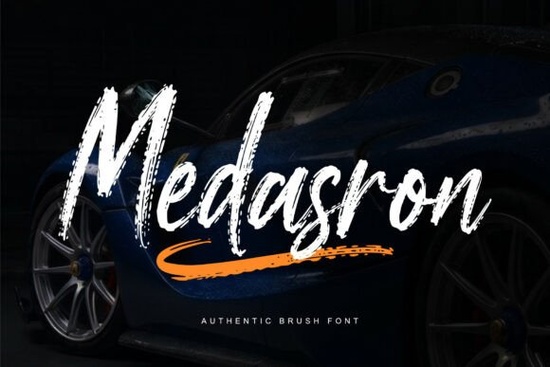
Looking for a brush font that feels real, bold, and full of character? Medasron Font delivers exactly that authentic hand-painted energy with every stroke. It’s not just another digital typeface; it’s designed to mimic the way a brush moves on paper, with rough edges, natural texture, and subtle imperfections that give your designs a handmade feel.
What makes Medasron stand out from other brush fonts?
While many brush-style fonts look smooth or overly polished, Medasron embraces the messy beauty of real brushwork. The dry brush effect and uneven pressure create a dynamic rhythm across each letter. This isn’t just about style it’s about authenticity. Whether you’re designing a poster, branding a small business, or creating social media content, Medasron adds immediate visual interest and emotional impact.
You’ll notice how the flow feels natural, like someone wrote it quickly with confidence. That spontaneity is what sets it apart. It’s perfect when you want your message to feel personal, powerful, and artistic without needing to paint it yourself.
Where can you use Medasron in your creative work?
Its versatility means it fits into many projects without looking out of place:
- Branding & logos – A strong, memorable identity that stands out
- Posters & flyers – Great for events, concerts, or art shows
- Social media graphics – Captures attention in feeds and stories
- Merchandise – Works well on T-shirts, mugs, and stickers
- Invitations & stationery – Adds a touch of handmade charm
It’s especially effective when paired with simple backgrounds or minimal layouts. Let the font be the focus it carries its own weight.
How does Medasron compare to other popular script fonts?
If you’ve explored similar styles like Nougat Dreams, Simplexa, or Legendaris, you’ll notice Medasron leans more toward raw expression than delicate elegance. It’s less refined, more energetic ideal if you’re going for boldness over softness.
For those who love the dramatic flair but still want readability, Kingdom Knights offers a similar intensity, though with a slightly more structured hand. Medasron sits somewhere between them organic, expressive, and unapologetically real.
Want to see how it performs in action? Try pairing it with clean sans-serif fonts for contrast, or layer it over textured backgrounds to enhance the brush feel.
Why designers and creators are choosing Medasron
Many users appreciate that it doesn’t require extra editing to feel authentic. Unlike some fonts that need custom effects to look “handmade,” Medasron arrives ready to use. The texture is built-in, so you save time and get results faster.
It also works well at different sizes whether used in large headlines or smaller captions, it maintains clarity and presence. No pixelation, no blurriness. Just consistent quality.
Whether you're a crafty hobbyist, a print-on-demand seller, or a small business owner building a brand, this font brings something unique to your toolkit. It’s not flashy, but it’s unforgettable.
- Pair with neutral or textured backgrounds for best visual effect
- Use sparingly in long text best for headlines, tags, and short phrases